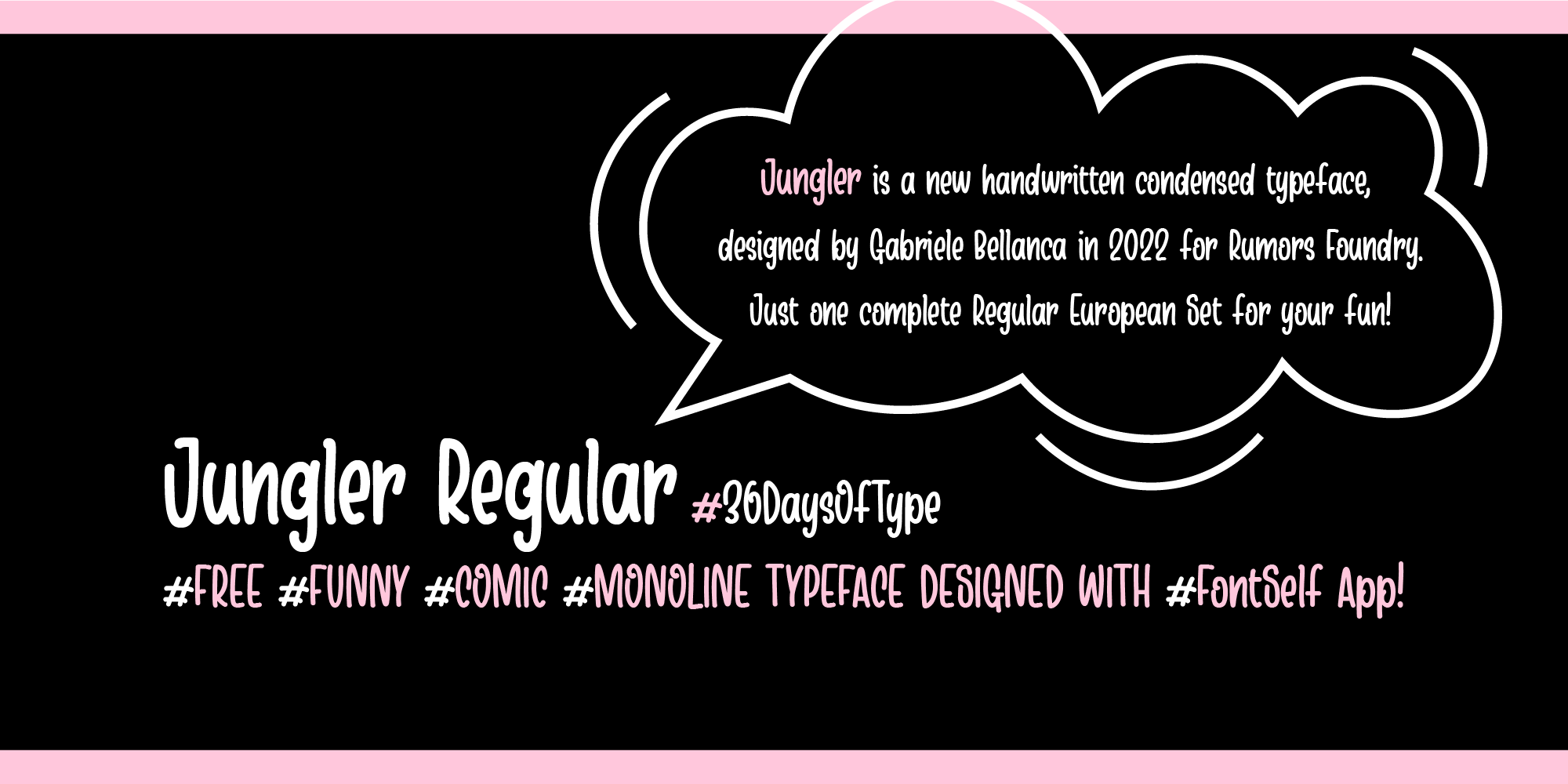
The Jungler Font is a bold and adventurous display typeface, often characterized by its rugged, untamed forms, perhaps with textured elements or a hand-painted feel, evoking a sense of raw nature and daring exploration. Imagine its commanding characters dominating posters for outdoor adventure events, adding an authentic, wild edge to survival gear branding, or creating impactful titles for documentaries about the wilderness and extreme sports. Its unconventional yet powerfully evocative aesthetic also makes it an excellent choice for unique apparel design, impactful social media campaigns that aim to inspire a sense of freedom, and any design where a bold, unapologetic, and unforgettable visual statement is paramount. Whether you're aiming for a gritty, untamed vibe or a more adventurous, free-spirited aesthetic, Jungler Font delivers with its unmistakable character, ensuring your visuals are both intriguing and truly memorable.
What makes Jungler Font so exciting is its audacious ability to infuse designs with immediate personality and an unbridled sense of wilderness. In a visual landscape often saturated with conventional or safe designs, this font offers a refreshing dive into raw expression and bold individuality. It’s more than just a typeface; it’s a design statement that can instantly convey an intense mood, a disruptive attitude, or a fascinating sense of adventure and resilience. Jungler Font offers designers the opportunity to create visuals that are both visually aggressive and remarkably unique, making it an invaluable asset for those looking to communicate a sense of urgency, freedom, and a powerful, unconventional style that resonates deeply with the spirit of the wild.
The Jungler Font family is typically structured to offer a range of styles that amplify its edgy and impactful appeal. Beyond the primary Jungler Regular typeface, you might find companion styles such as a more impactful Jungler Bold for even stronger emphasis, or perhaps Jungler Distorted or Jungler Textured versions to add different visual textures and further enhance its raw or wild aesthetic. Given its display nature, the family may also include unique ligatures, alternate characters, or stylistic sets that allow for even greater customization, particularly in logotypes and large-format headlines, perfecting its ability to evoke a sense of unyielding spirit or creative defiance. These diverse family members provide designers with the flexibility to establish a clear typographic hierarchy and maintain a consistent, high-impact, and often avant-garde aesthetic across all elements of their project, from dominant headlines to supporting graphic elements.